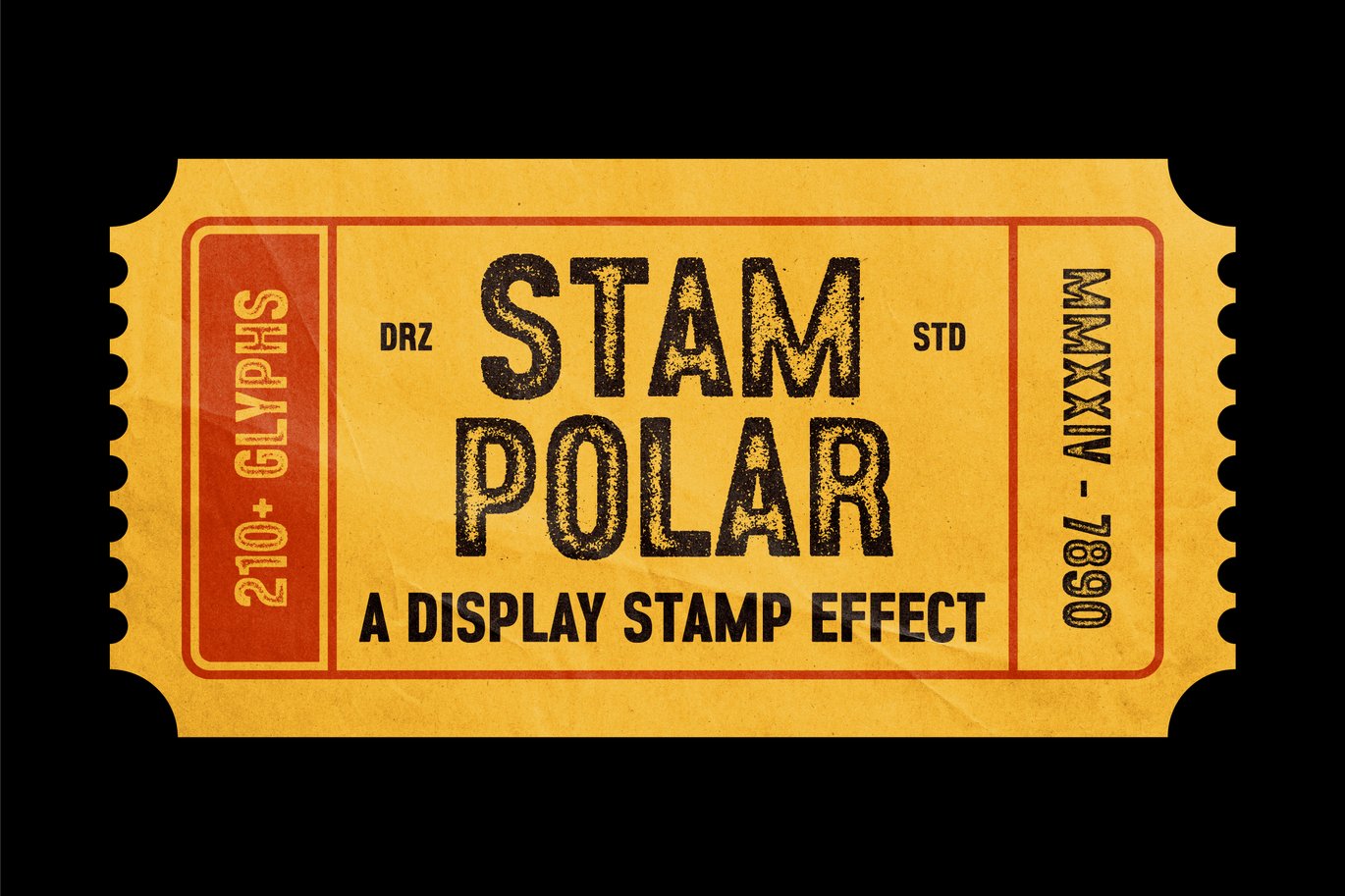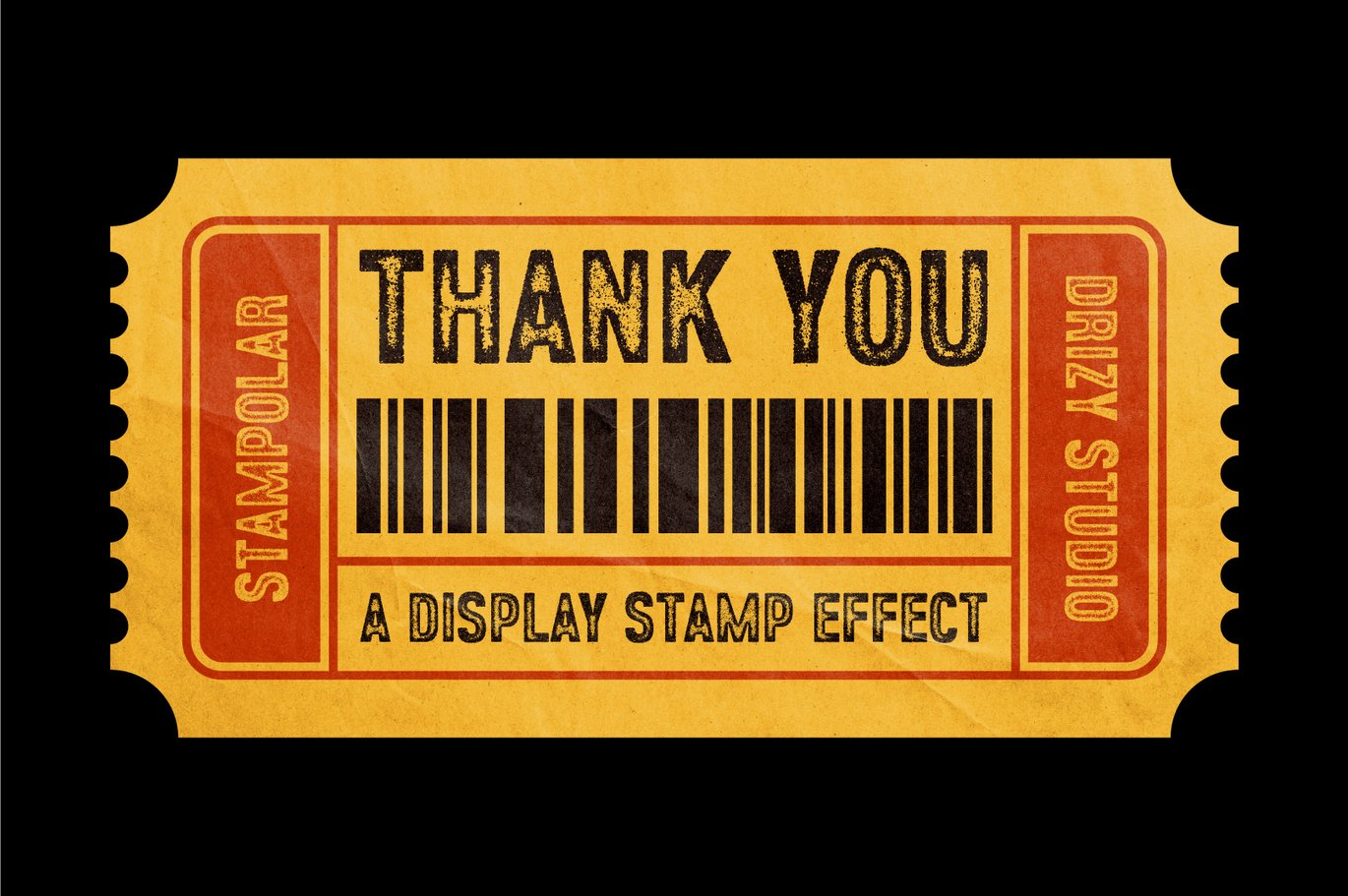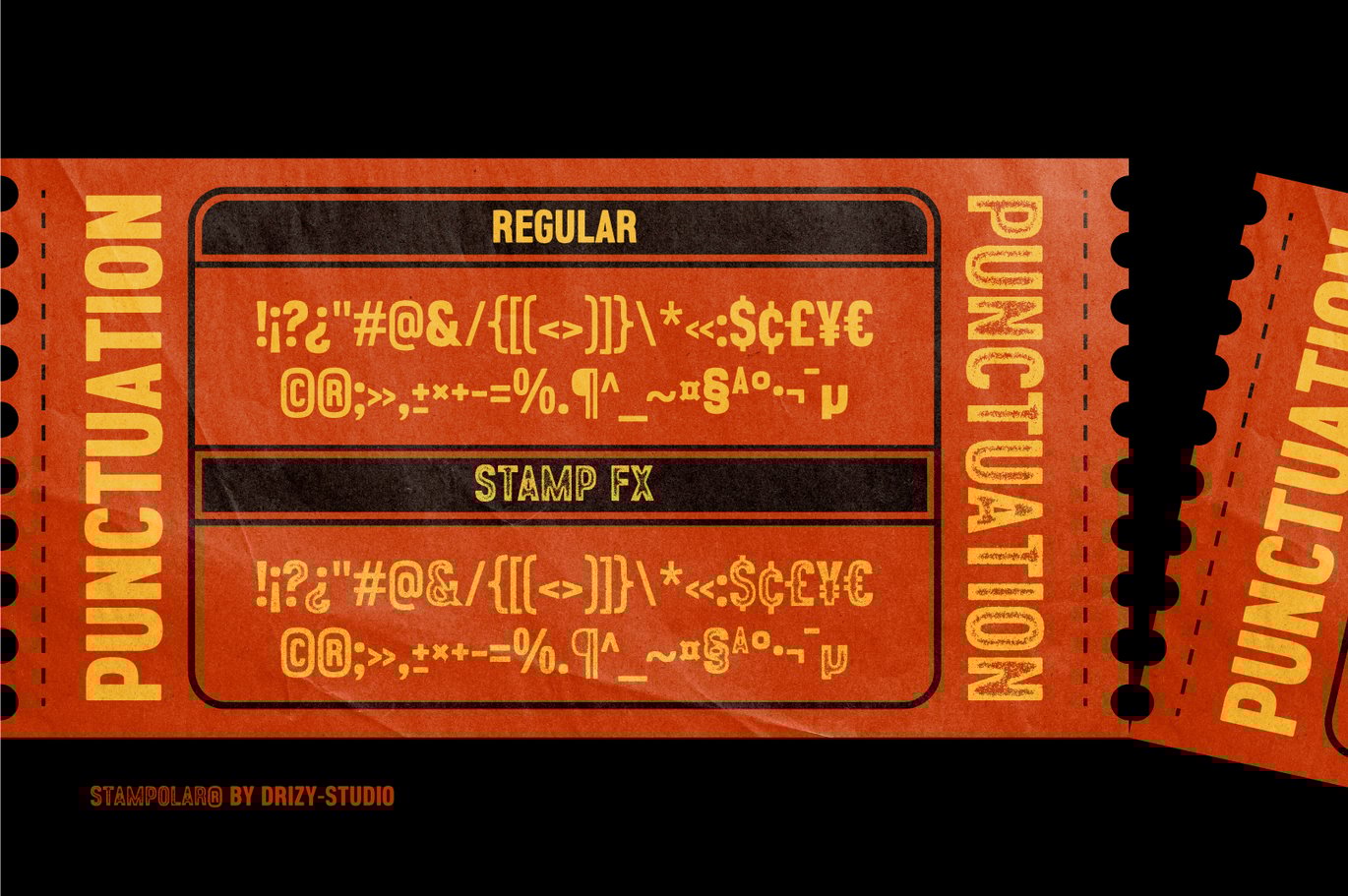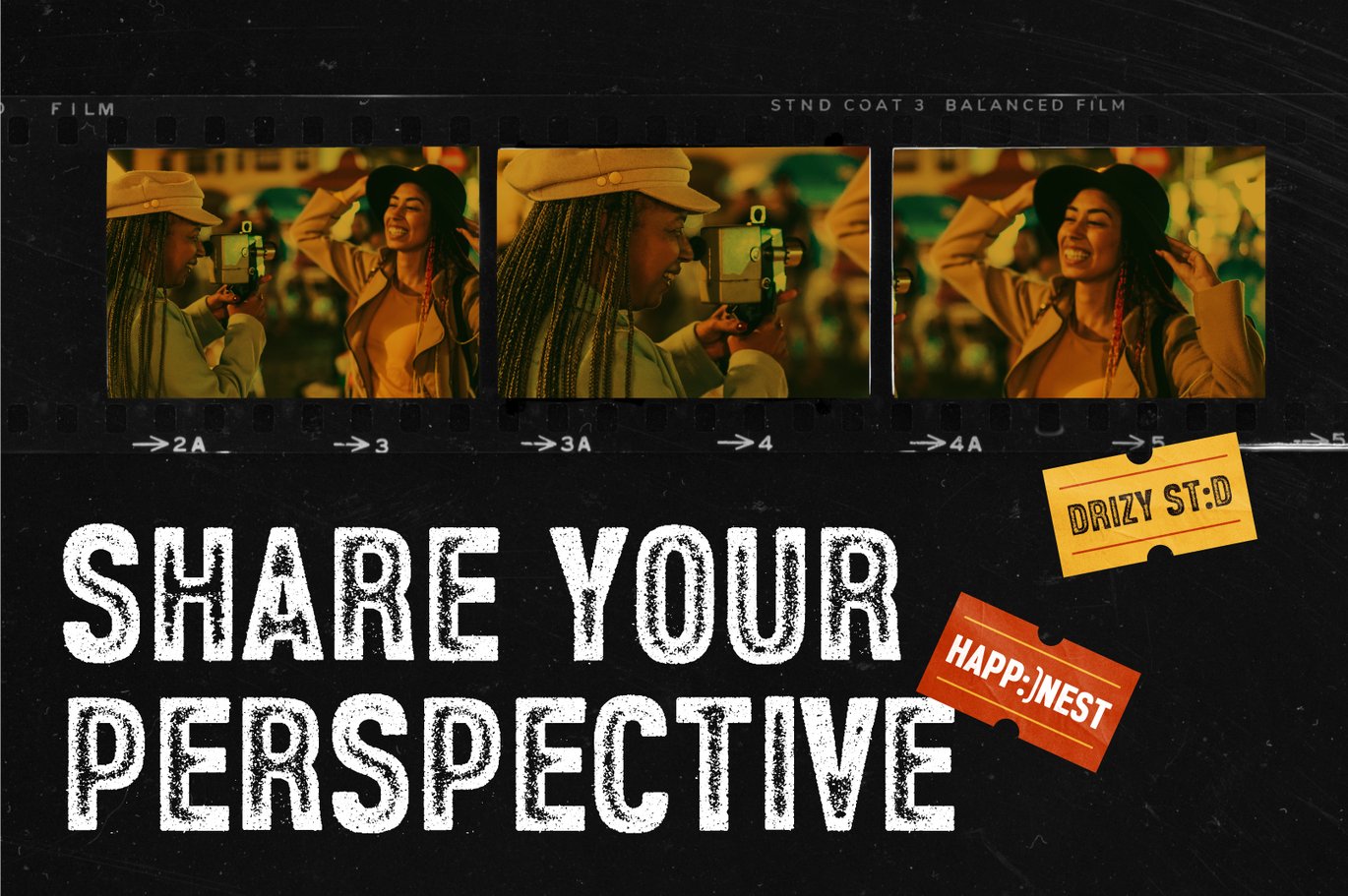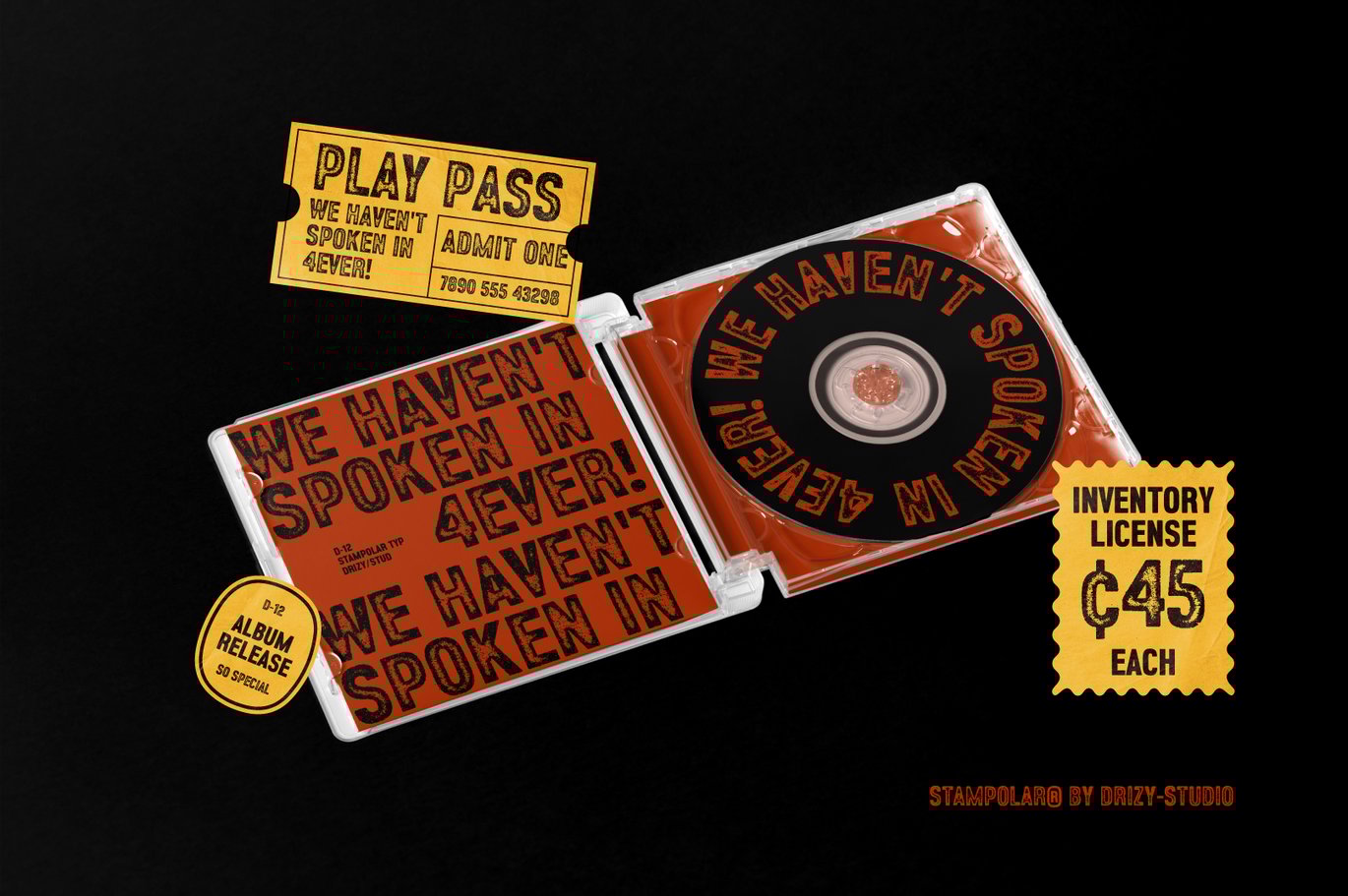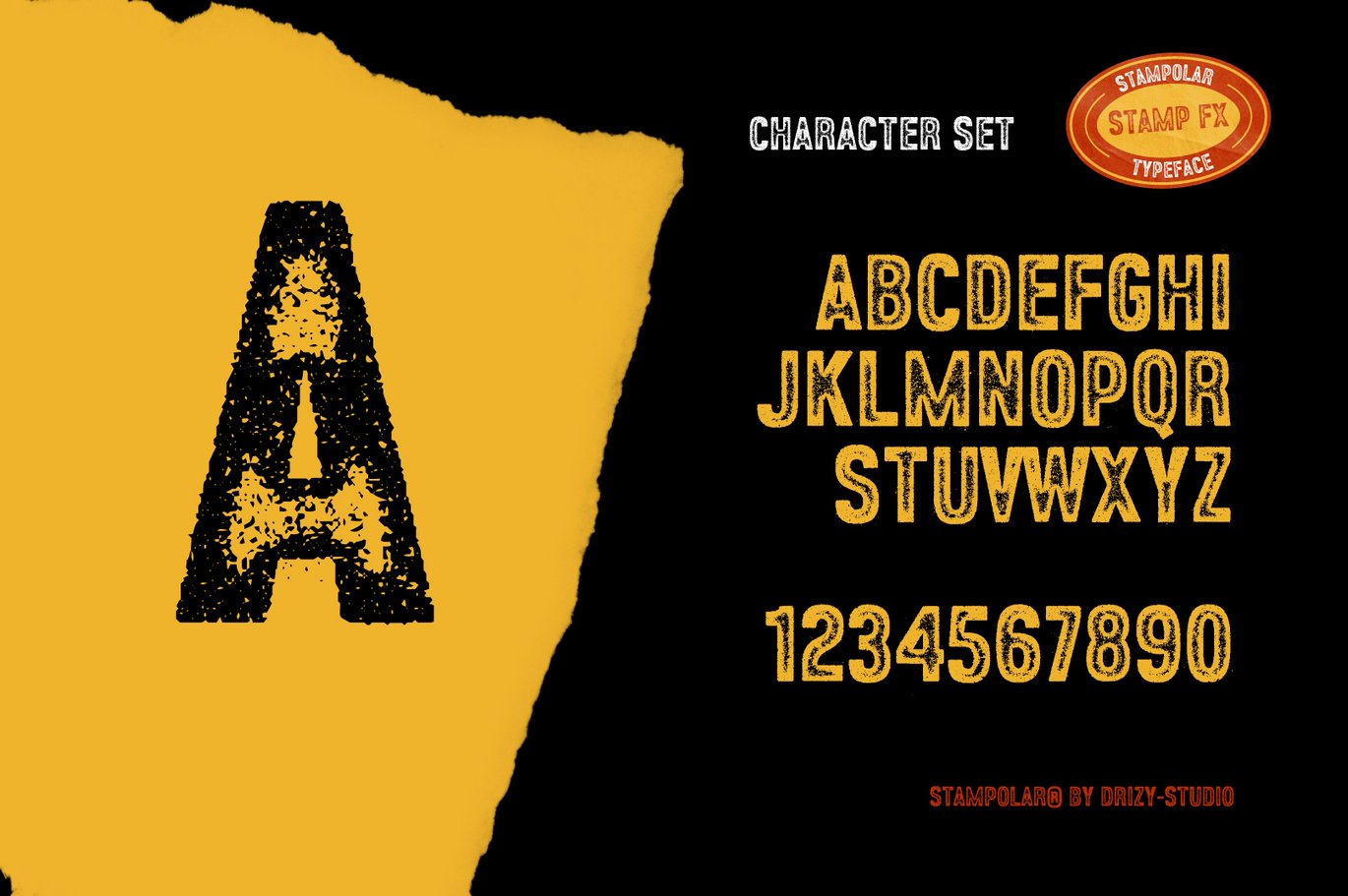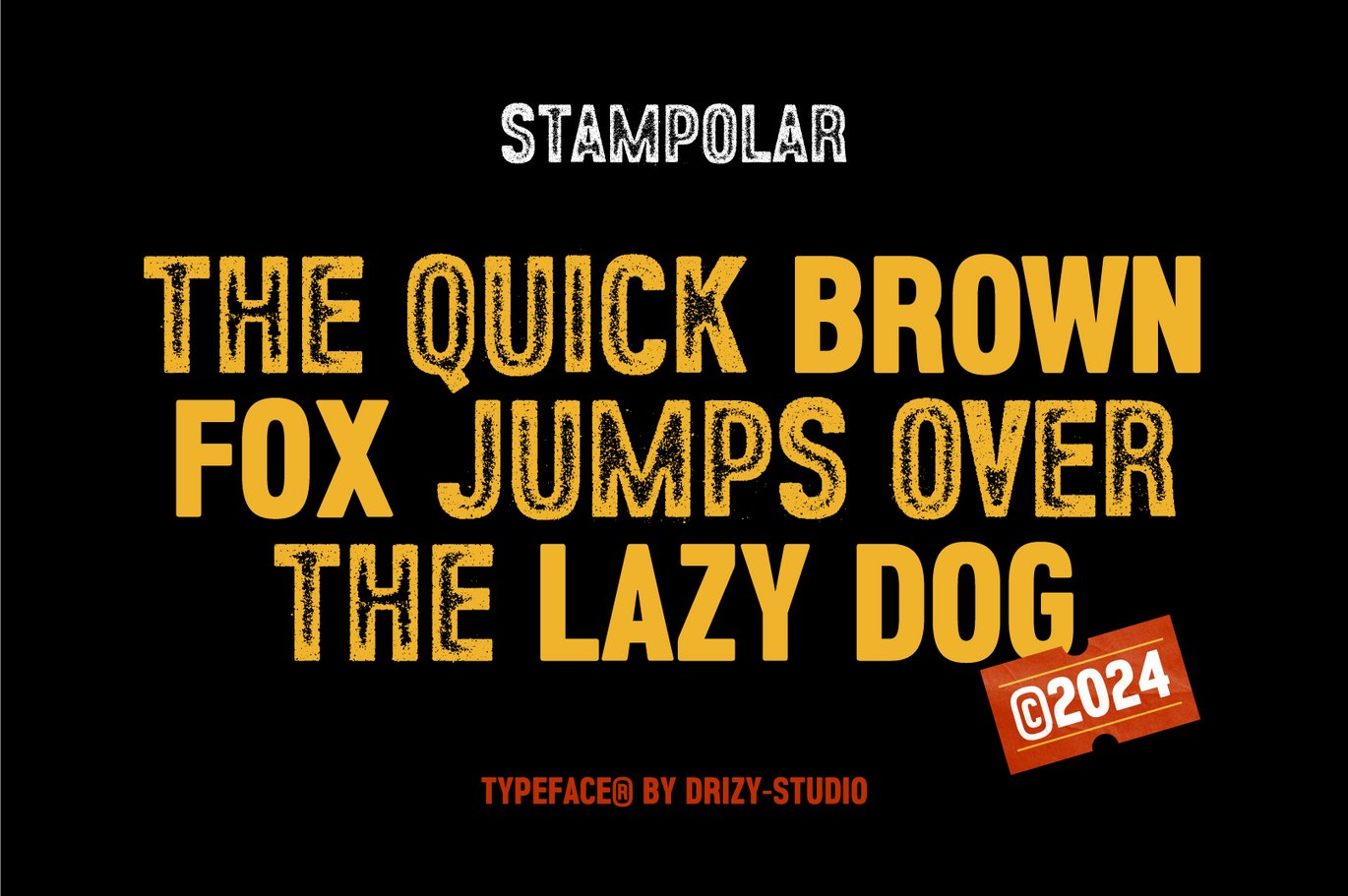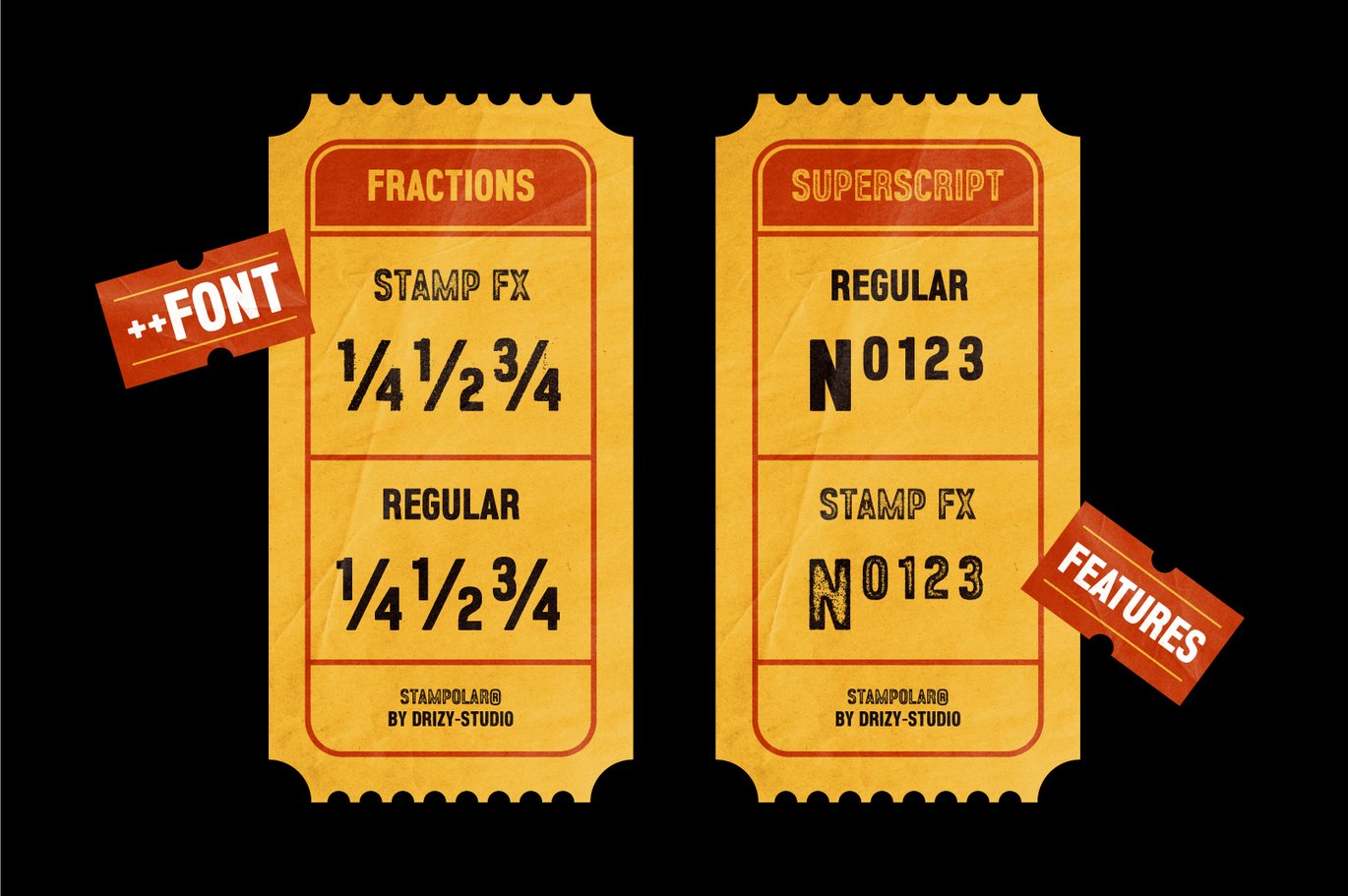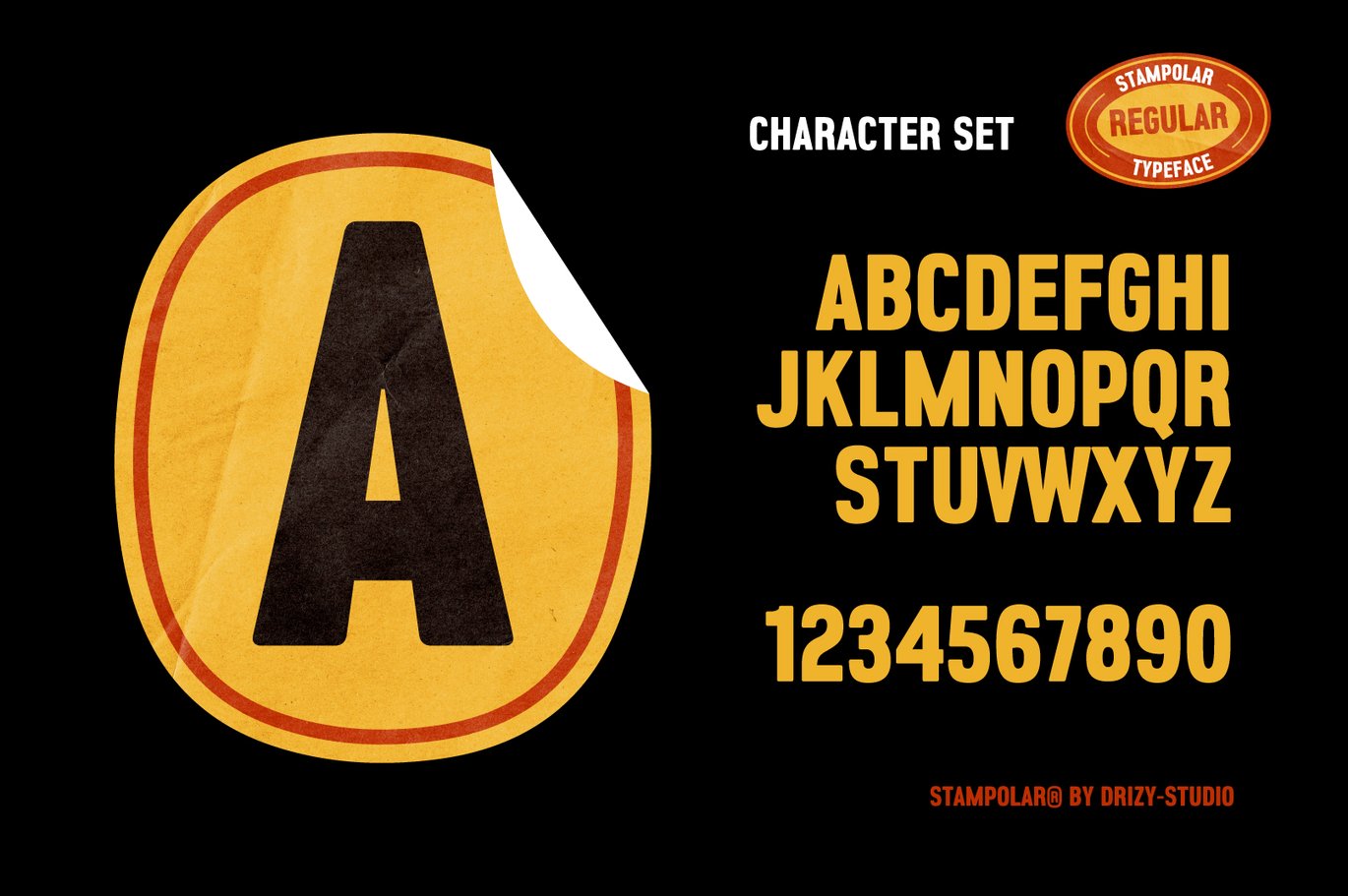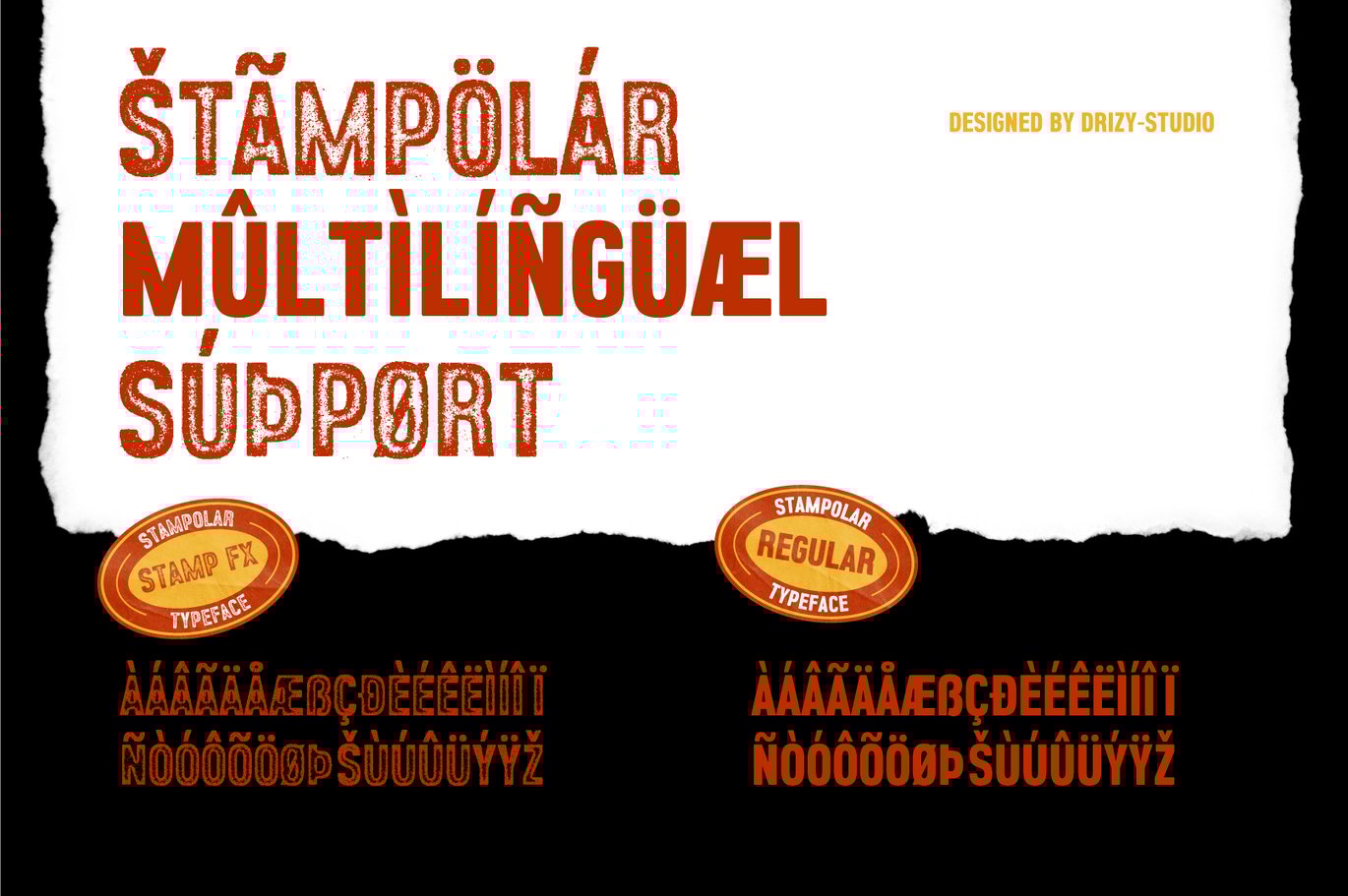
Stampolar – Display Stamp Effect Font
Stampolar is a unique and captivating font that brings the nostalgic charm of old-school rubber stamp into the digital realm. With its distinctively stamped appearance, this font exudes authenticity and character, perfect for adding a touch of vintage flair to your designs. Embrace the warmth and personality of handcrafted typography, and elevate your creations with its unmistakable stamp effect.
Stampolar features:
Character Set (All Caps)
Variable : Regular & Stamp FX
Elevate and explore the design possibilities with this Rubber Stamp Font!